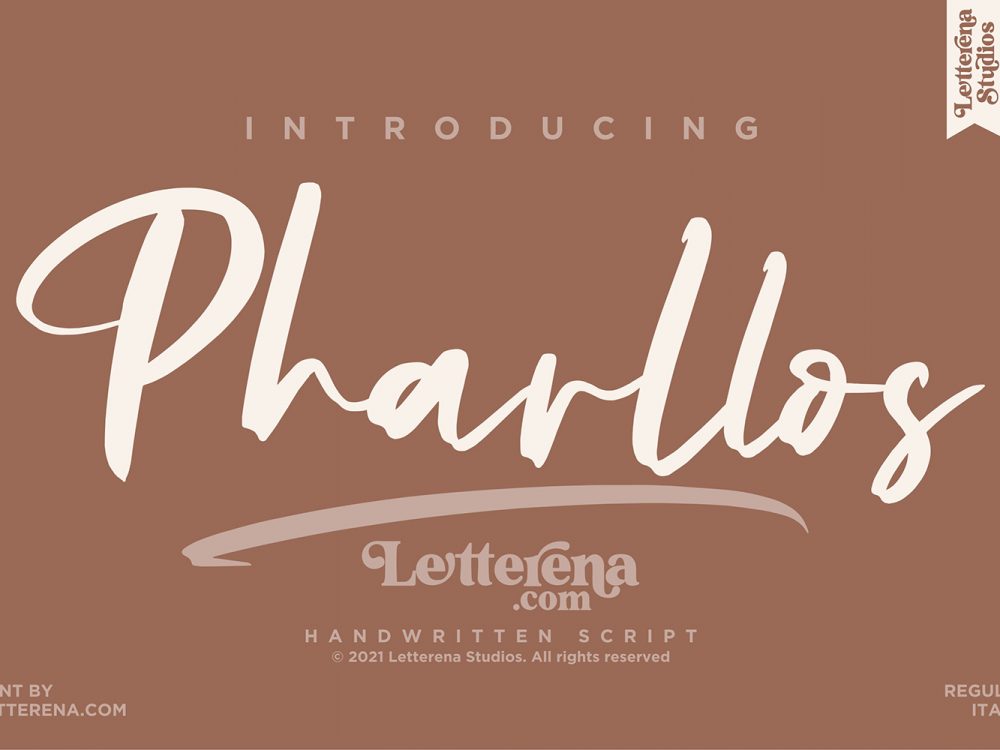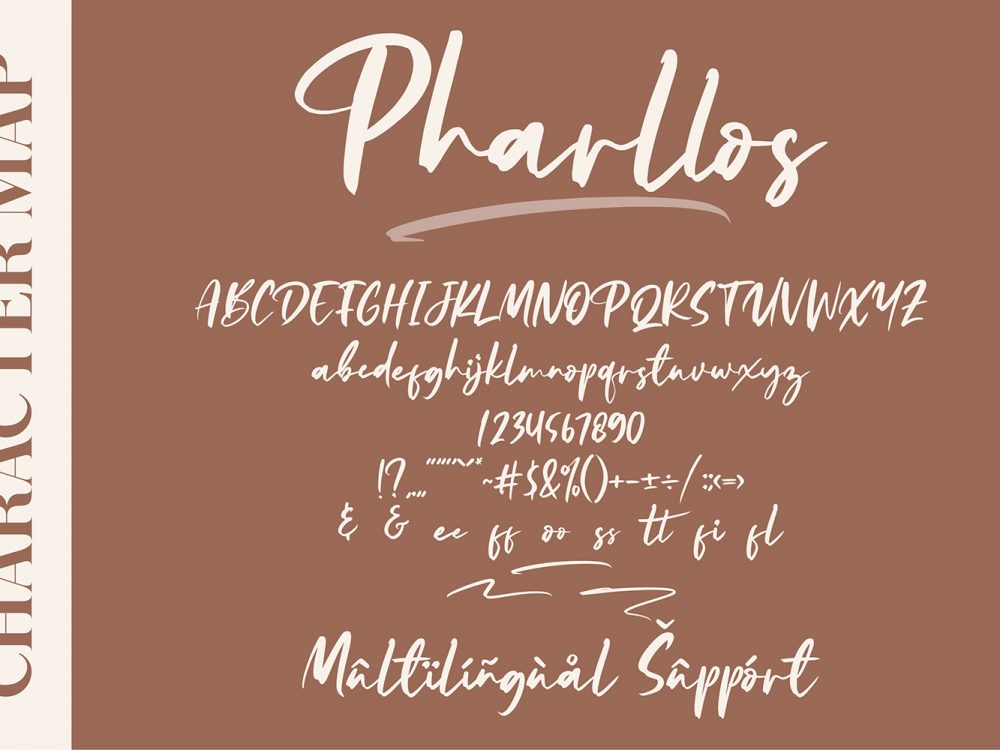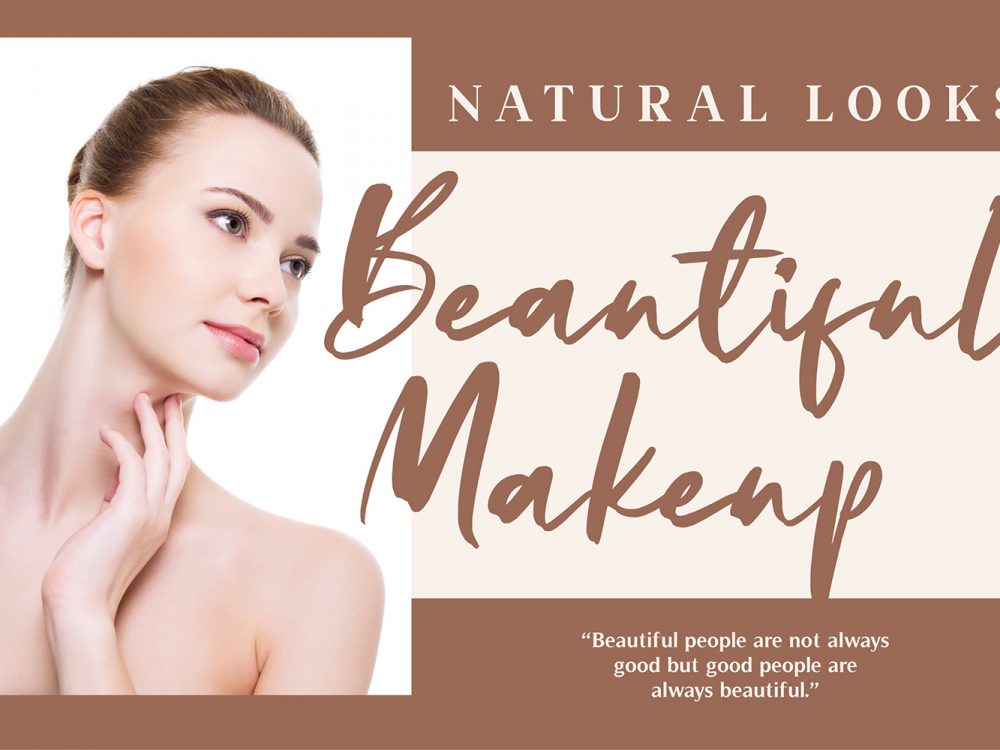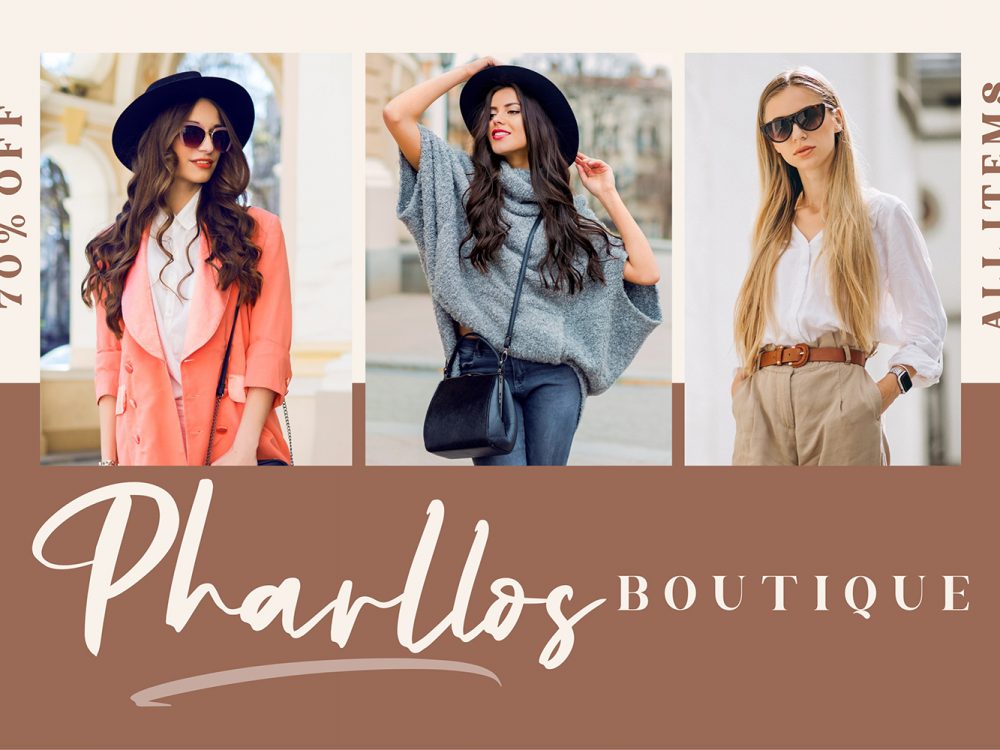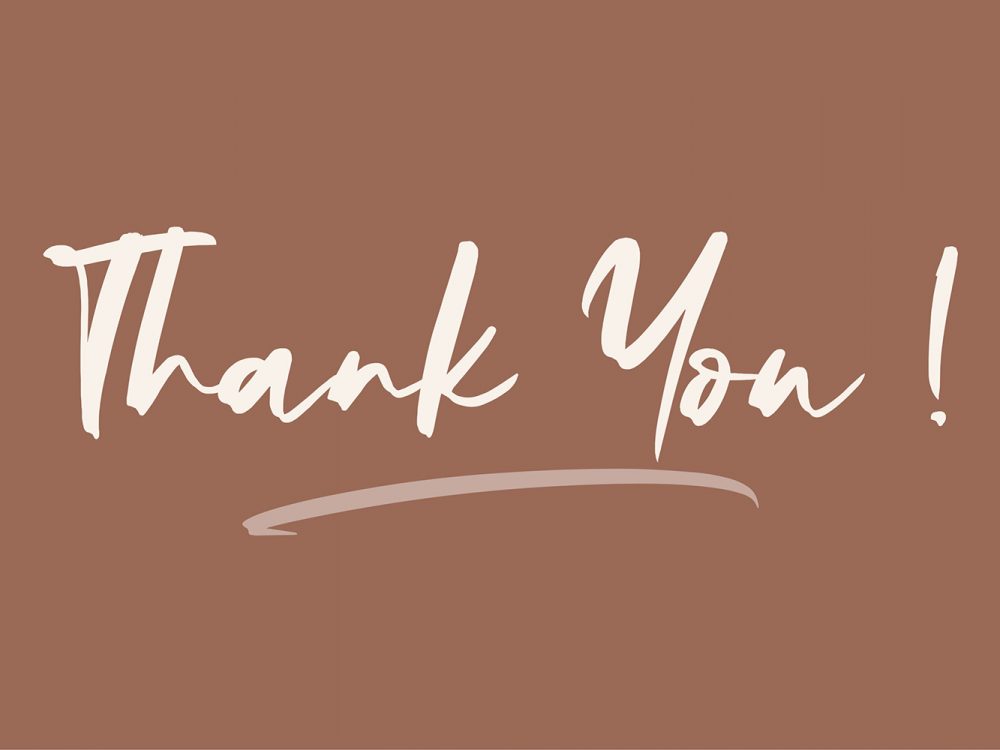
Pharllos Free Font
Pharllos Free Font is an interesting typeface that mimics writing with a brush and has an elegant style. This font is very suitable for creating various design projects that require a handwritten font. These can be posters, cards, invitations, flyers, prints, and much more. If you wish to access more features and use it for commercial work please buy the If you like it don’t forget to check out the full version.